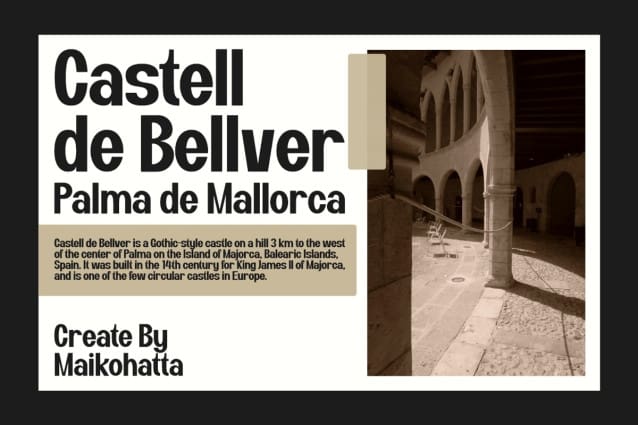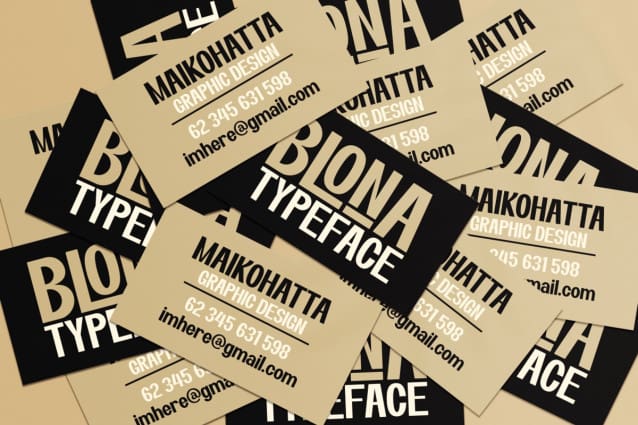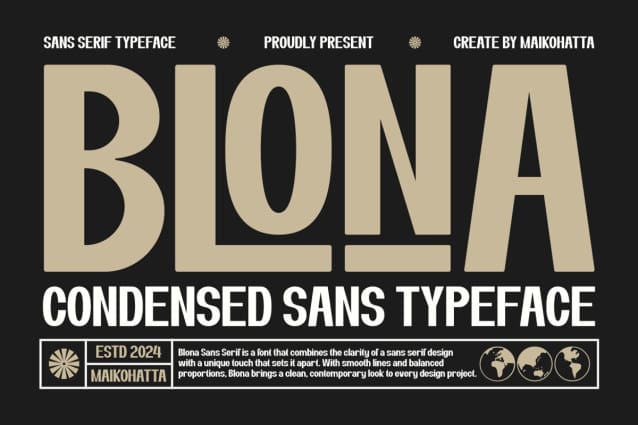
Blona Font
Blona Font – Condensed Sans Typeface. This font is a type of font that is characterized by narrower or slimmer letterforms compared to regular or wide fonts. Condensed fonts are often used in various graphic designs, print materials, and other media because they have distinct advantages and unique characteristics